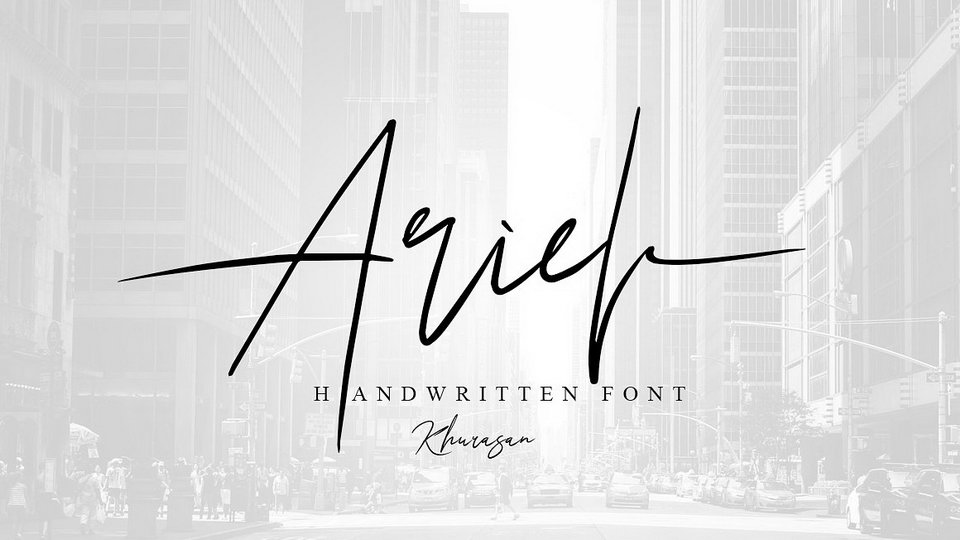
Ariel Signature Script Font › Fontesk – Download Grátis
Download Ariel font, a stylish signature script with very fresh and unique style handmade. Perfect for logo, personal branding, posters, apparel, branding, wedding invitation, card, tagline, layout design, and much more!!